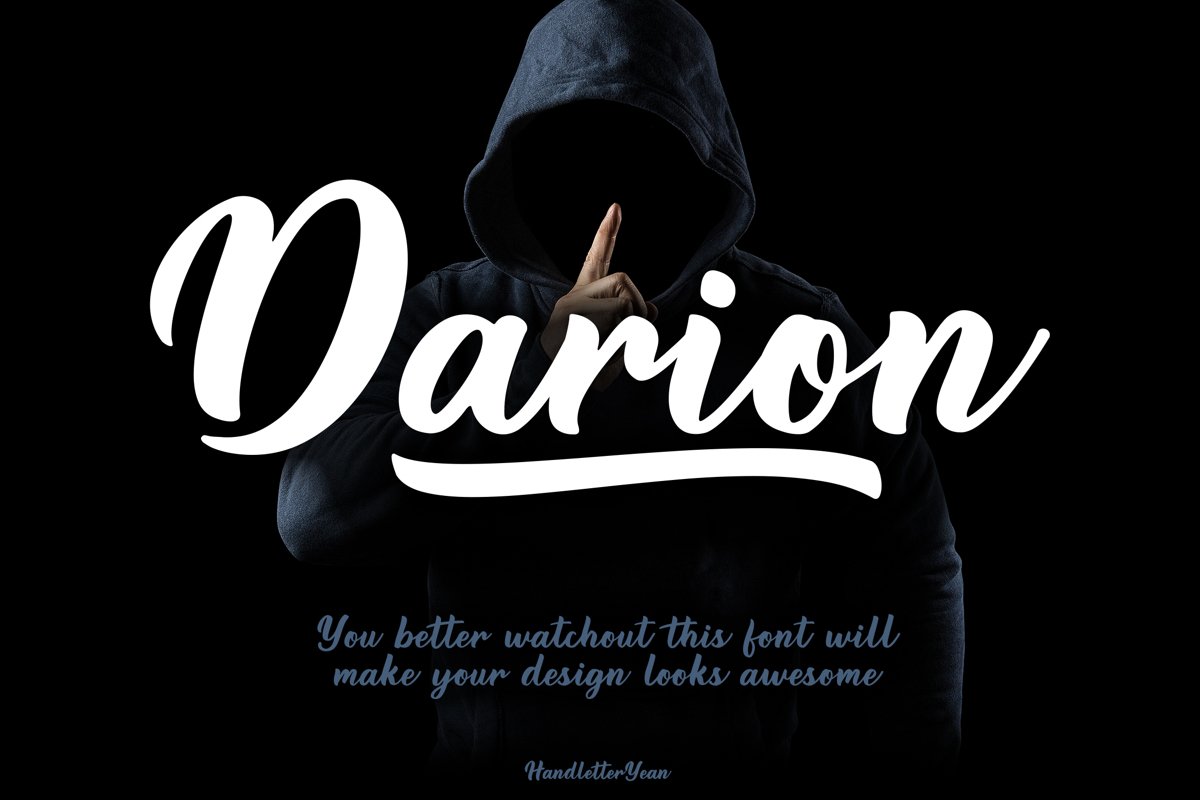
Darion
Darion - bold italic
Darion - regular
Darion - italic
Darion - bold
Darion is a modern bold script font with natural handwriting touch. This font ready to make all your designs looks awesome. Its clean and strong looks are suitable for projects such as crafts, quotation, decoration text, prints, advertising, packaging, logo, business card,
2. These font styles are regular, italic, bold, bold italic
6. Support multilingual; ä ö ü Ä Ö Ü ß ¿ ¡